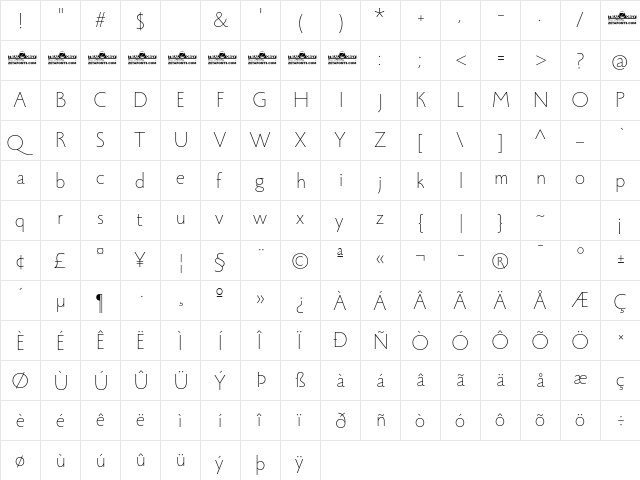
Monterchi Sans Trial Thin
| Foundry | Zetafonts |
| Designer | Cosimo Lorenzo Pancini e Francesco Canovaro |
Design Context for Monterchi Sans Trial Typeface
Monterchi Sans Trial offers clean, dependable letterforms without strong stylistic allegiance, making it a practical choice for designers who need flexibility. Its slender proportions lend an understated elegance to any composition.